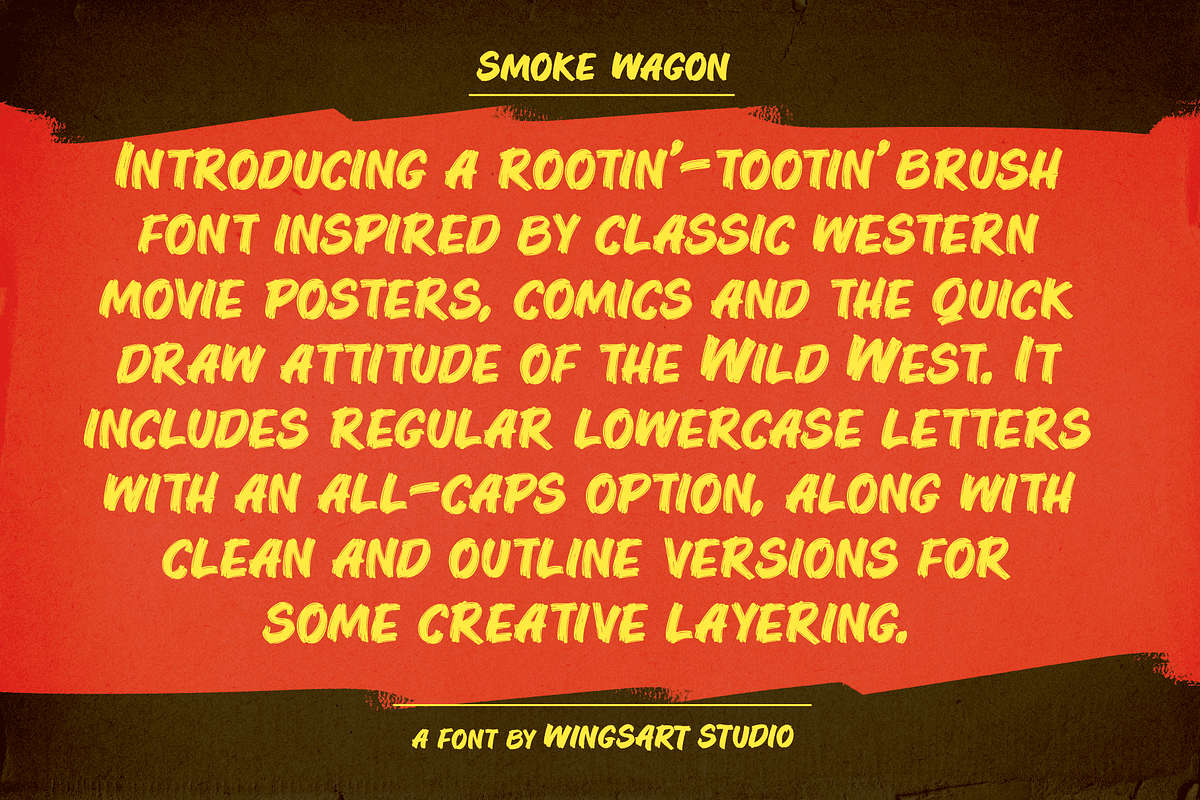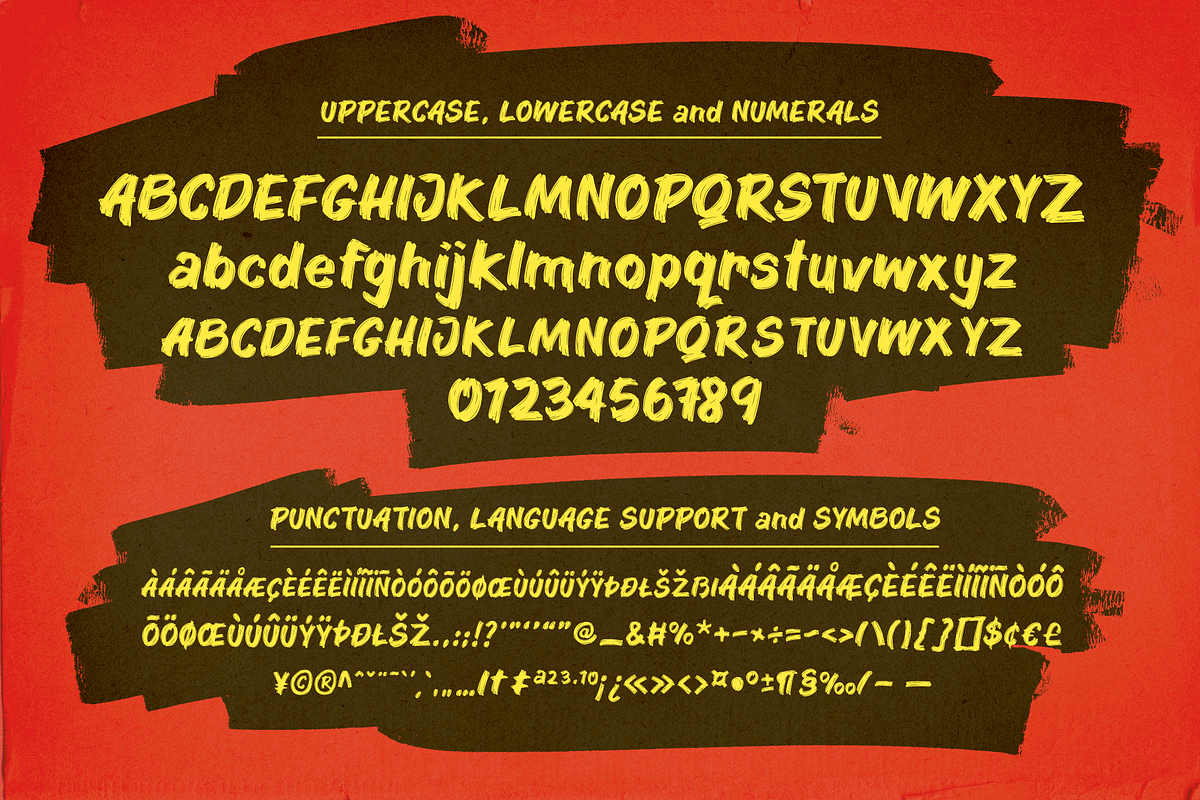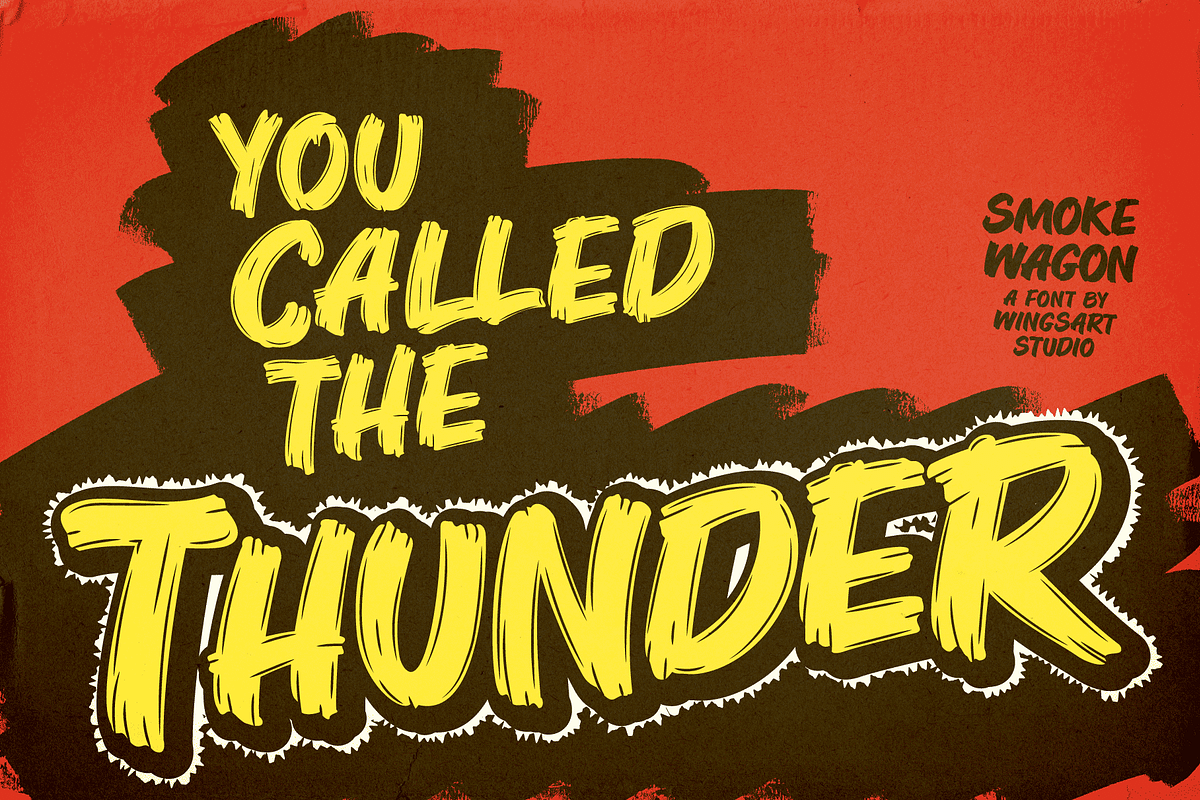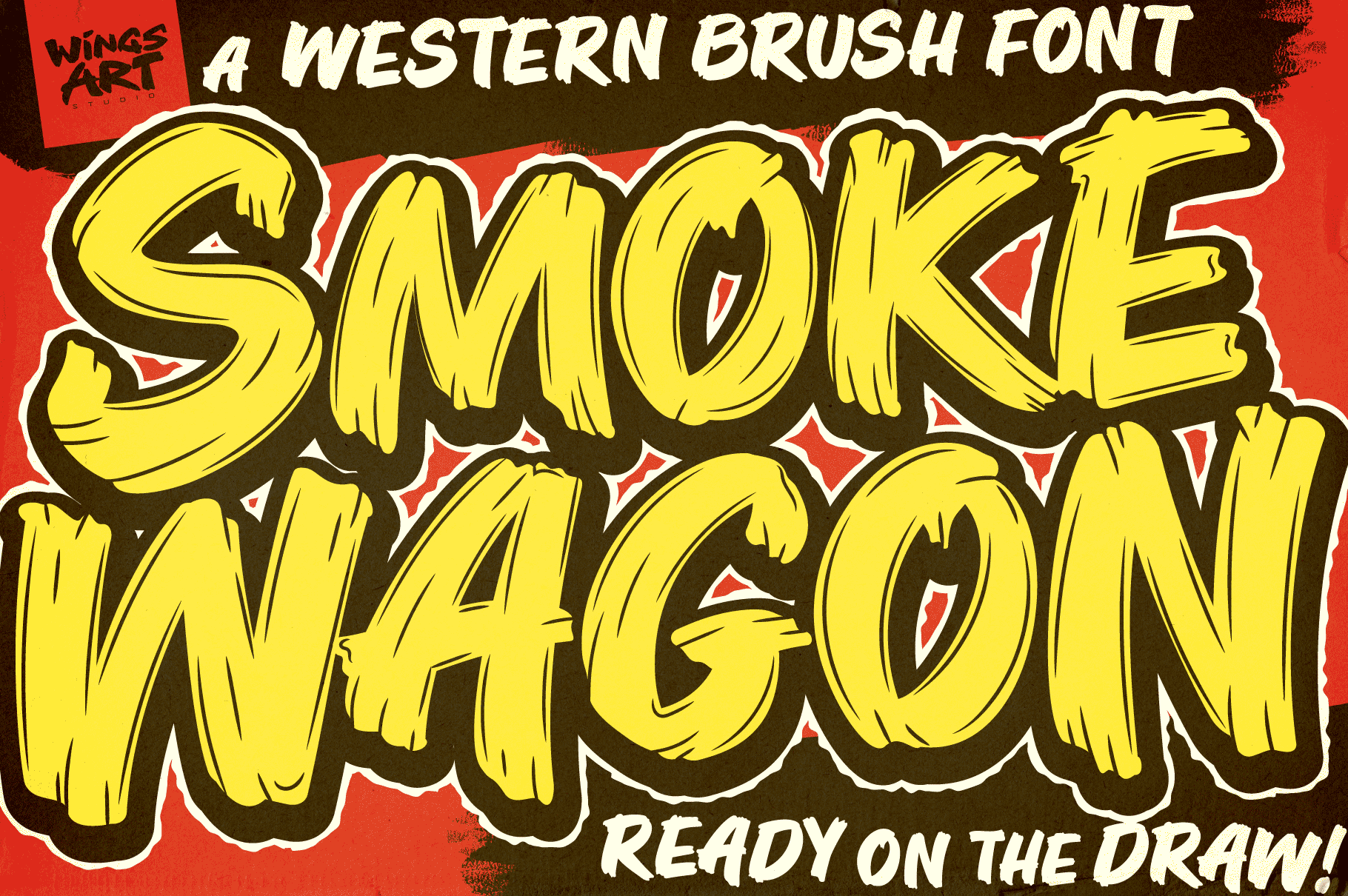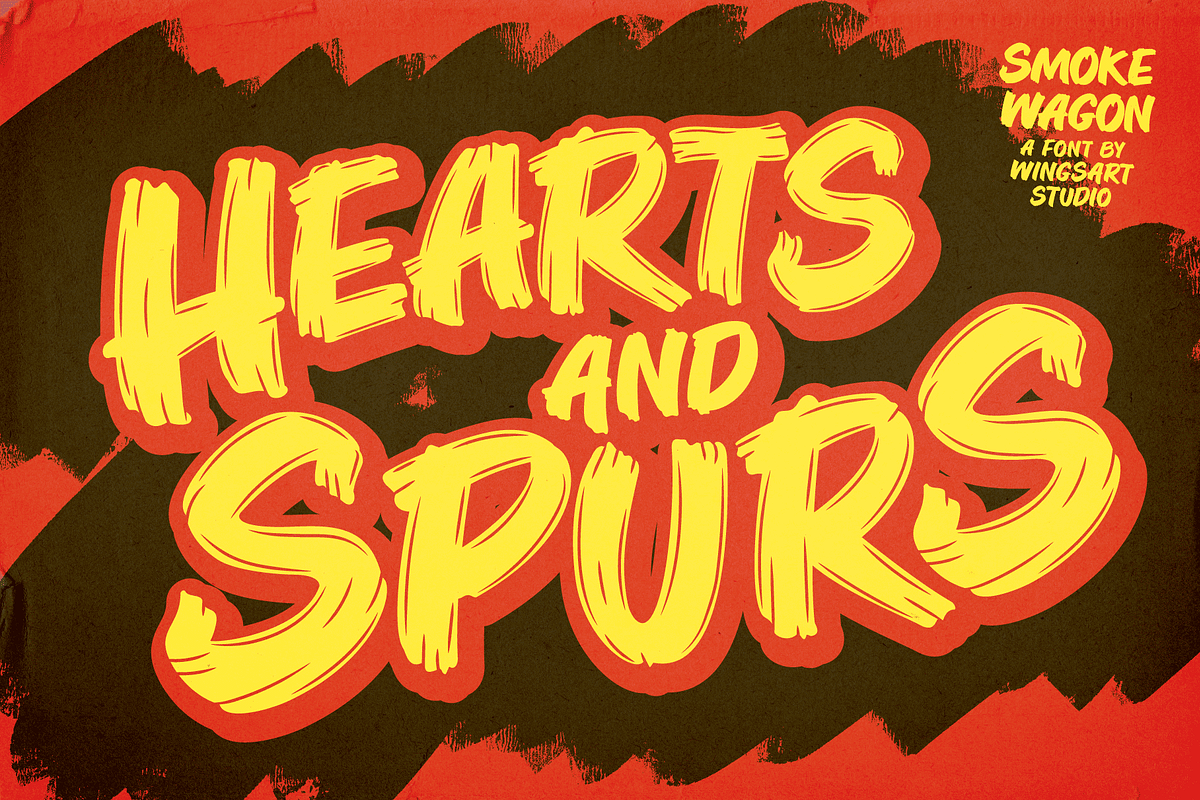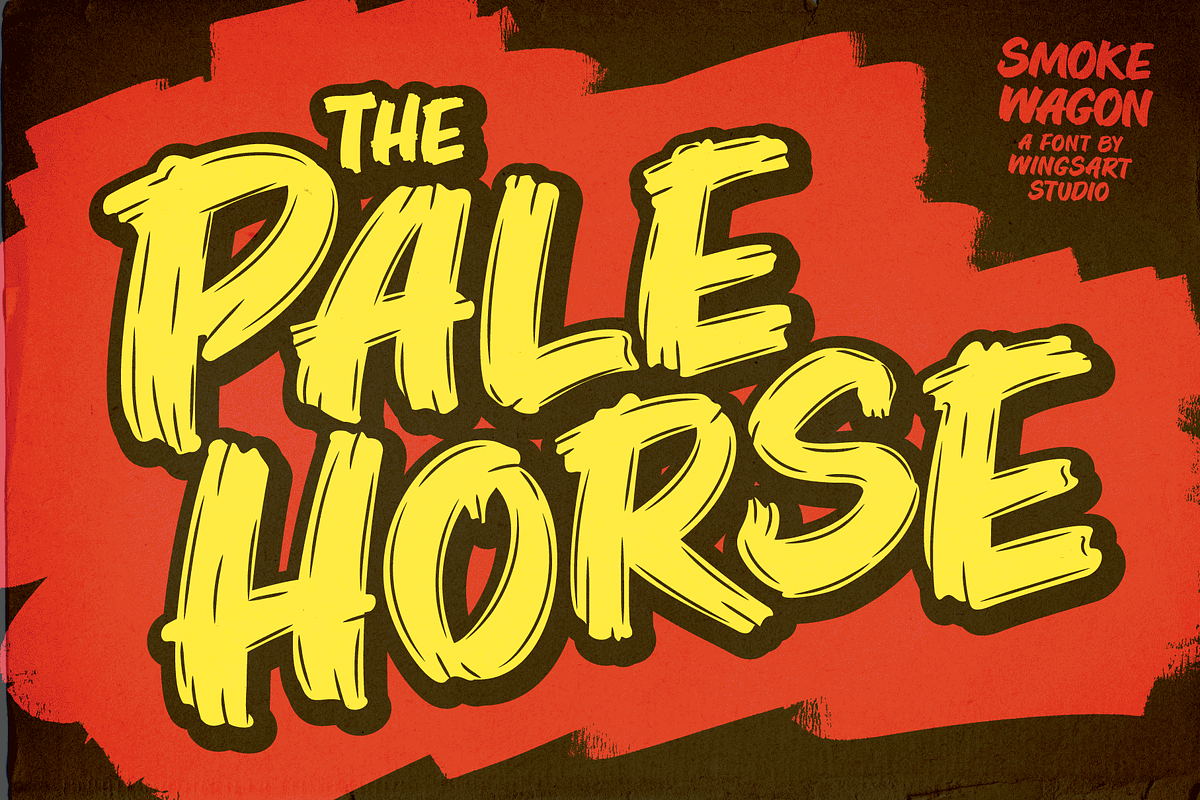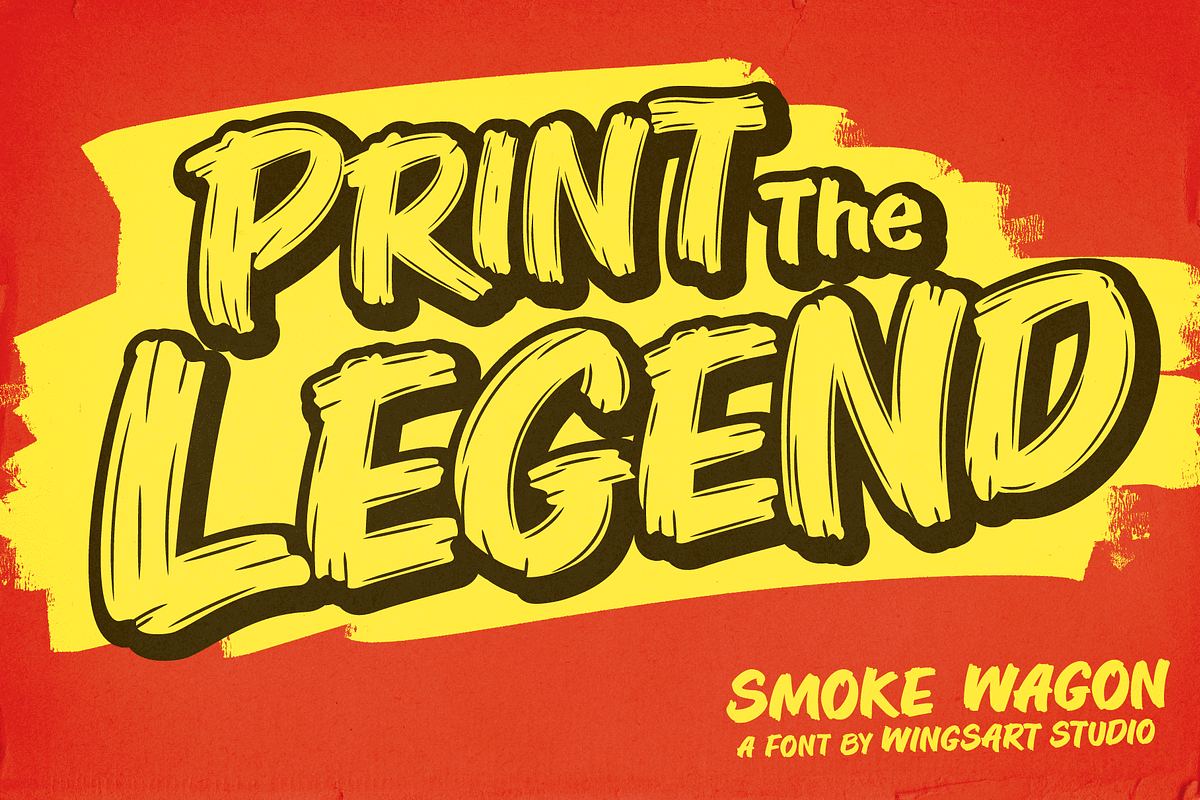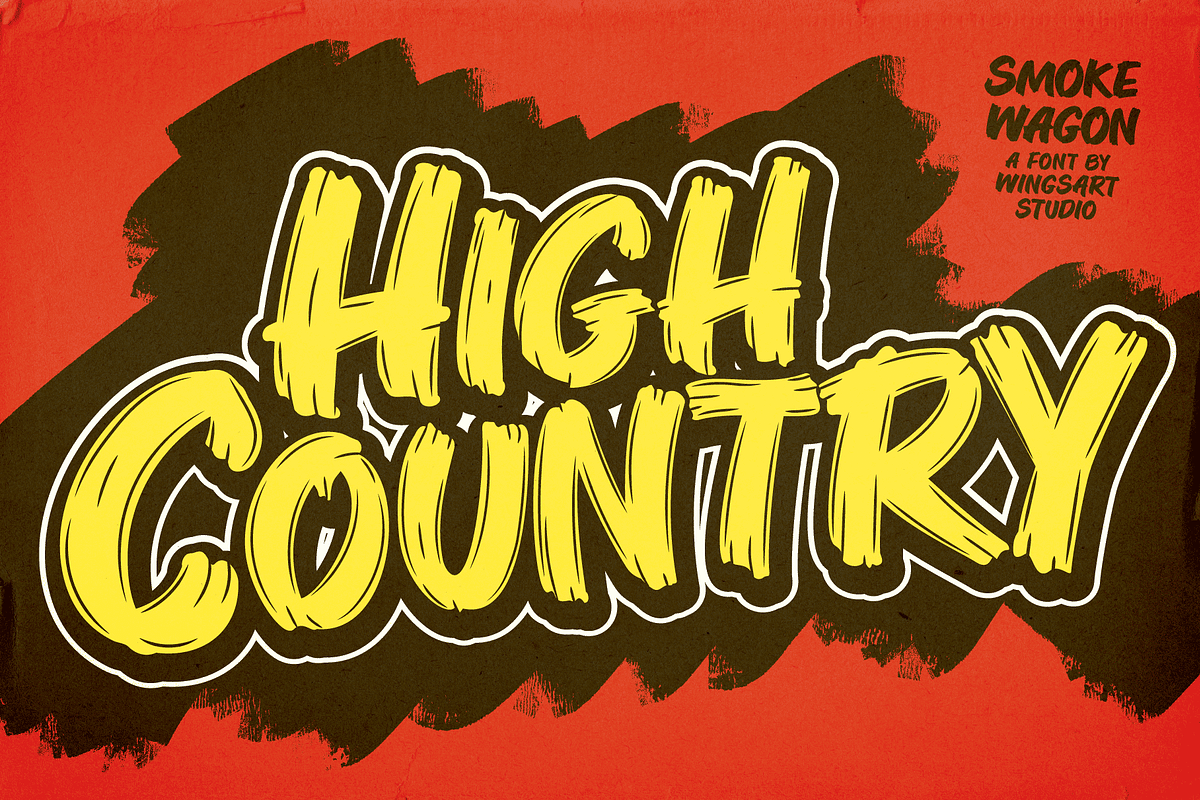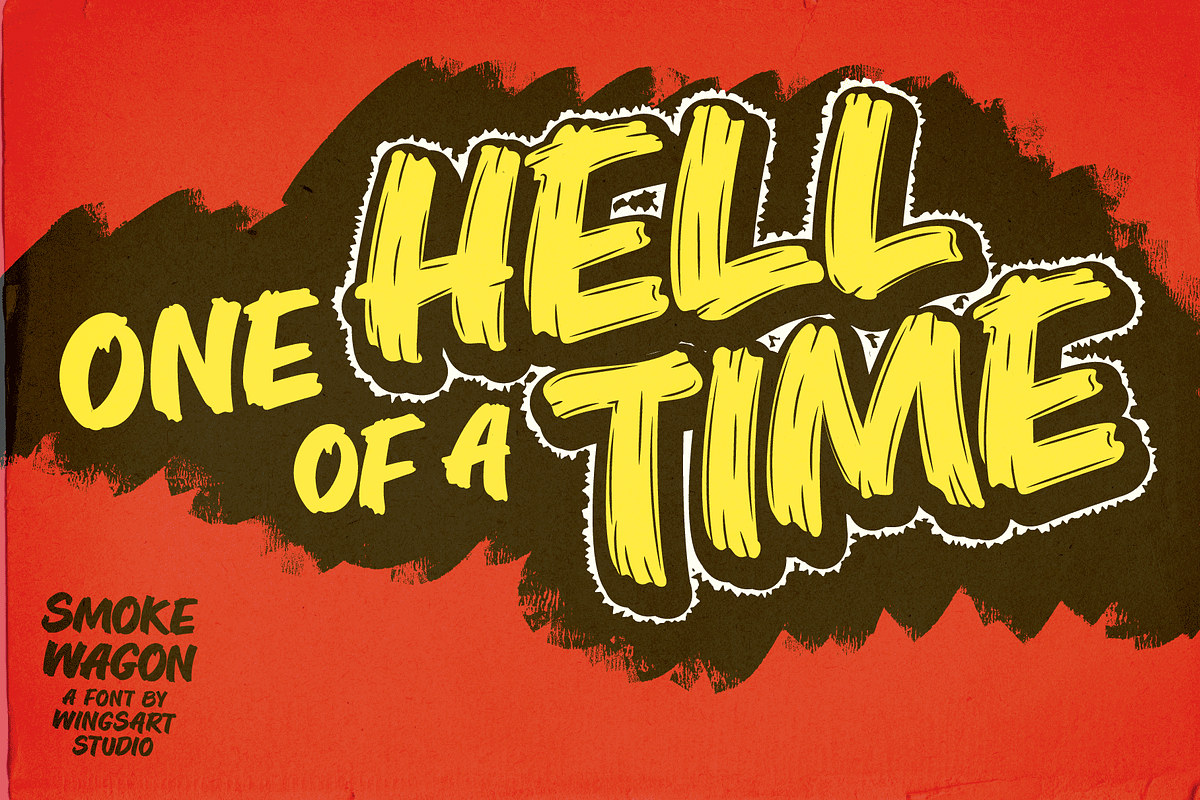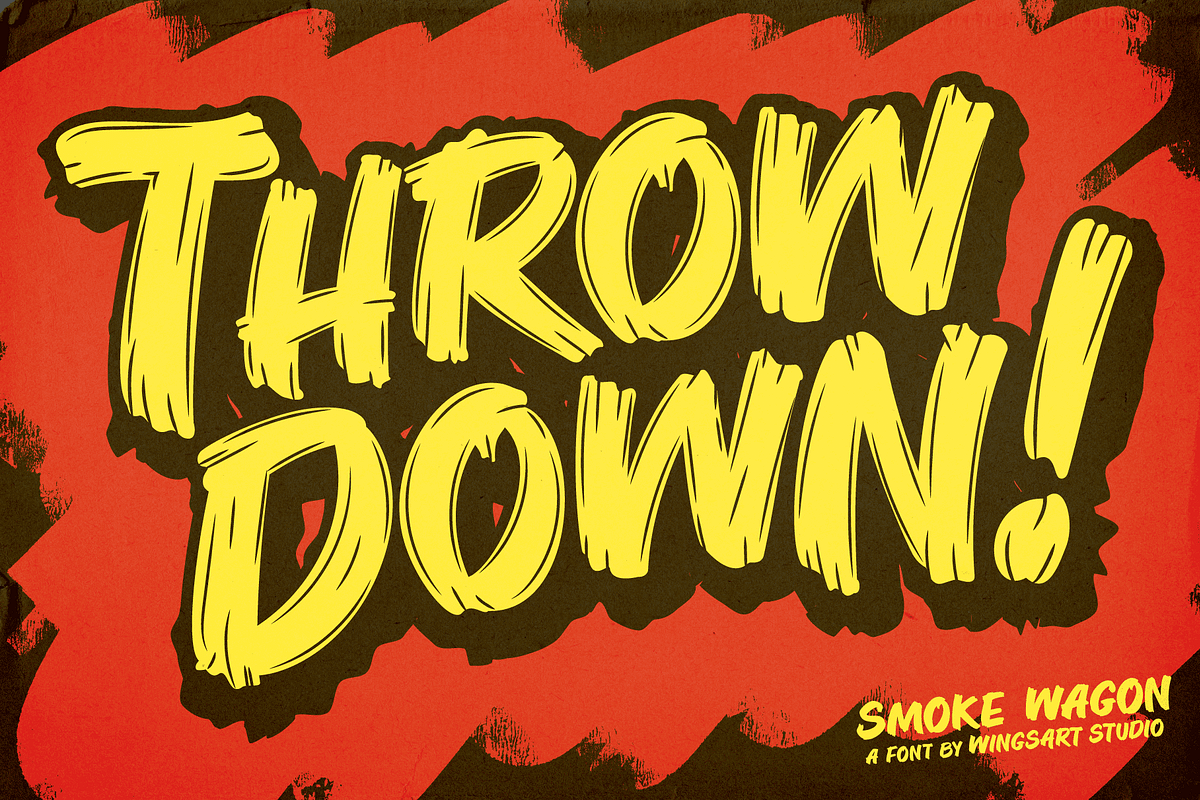
Smoke Wagon - A Western Brush Font
Smoke Wagon - A western brush font, ready on the draw!
Introducing a rootin’-tootin’ brush font inspired by classic western movie posters, comics and the quick draw attitude of the Wild West. It includes regular lowercase letters with an all-caps option, along with clean and outline versions for creative layering.
Smoke Wagon Regular offers a complete set of uppercase and lowercase characters, along with numerals, punctuation, symbols and language support; plus the all-caps variant is ready and recommend for the most impactful title designs. You’ll also find included additional Clean and Outer versions which allow for versatile layering and interesting creative options. You’ll also find the experimental “Rough Justice” variant - an early concept that was abandoned on route to the final Smoke Wagon font, but included here for it’s loose, sketchy potential.
Designed to be seen in large, eye-catching titles, this is a font intended to invoke the atmosphere of legendary gunslingers, cattle drives and the spirit of the old-west.